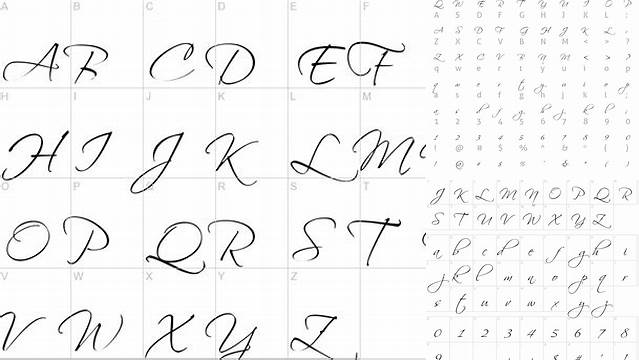
Hey guys, are you on the hunt for a cool, stylish font that can give your projects a touch of elegance and personality? Well, look no further because today we're diving deep into the Scriptina Pro Regular font, and the best part? You can snag a free download! This font is a fantastic choice for a variety of design projects, from crafting beautiful invitations to creating eye-catching logos and branding materials. Let's get into what makes this font so special, where you can download it, and how to use it effectively to elevate your designs.
What Makes Scriptina Pro Regular Font So Special?
Alright, let's talk about what makes the Scriptina Pro Regular font a superstar in the font world. This font is essentially a modern calligraphy script font. It's designed to mimic the look of elegant, flowing handwriting, making it perfect for projects where you want to add a personal touch. The font features beautifully connected letterforms, which is a key characteristic of script fonts, providing a seamless and aesthetically pleasing look. This creates a sense of sophistication and class, which is why it's a favorite among designers looking to create a luxurious feel.
One of the coolest things about Scriptina Pro Regular is its versatility. It's not just a pretty face; it's also super functional. Whether you're designing wedding invitations, creating logos, or working on branding materials, this font fits the bill. It's also great for creating headings and titles where you want to make a strong visual impact. The font’s smooth curves and elegant strokes give any text a touch of finesse that can really make your work stand out. In essence, it helps you make a statement without being overly flashy or complicated. It's about achieving that perfect balance of style and readability.
Think about the last time you saw a design that immediately caught your eye. Chances are, the font played a significant role. Scriptina Pro Regular has the potential to be that attention-grabbing element in your designs. It’s a fantastic way to show off your creativity. It communicates a sense of sophistication and attention to detail. When paired with the right colors and design elements, it can create a cohesive look that really makes a difference. This font is not just about the letters; it's about the overall impression you want to make on your audience.
Another point to remember is that the Scriptina Pro Regular font comes with a full set of characters, which is a bonus. That means you get all the letters, numbers, and special characters needed to make your design work. This is often missing in other fonts. It’s a complete package that gives you the flexibility to create a wide variety of projects. You don't have to worry about running into missing characters or compatibility issues. The font is designed to be user-friendly and easy to integrate into your creative workflow. In the end, this is a font that’s all about making your design work easier and more effective. So, if you’re looking to infuse your projects with elegance and style, Scriptina Pro Regular is definitely worth considering.
How to Use Scriptina Pro Regular Font Effectively
Alright, you've downloaded the Scriptina Pro Regular font – awesome! Now, let's explore how to use it effectively to really make your designs pop. Using this font well is all about knowing when and how to apply it to achieve the best results. From typography to layout, here's some expert advice to help you get the most out of this elegant script font.
- Choosing the Right Project: Scriptina Pro Regular shines in projects that call for a touch of sophistication and elegance. Think of wedding invitations, greeting cards, and event flyers. It is also perfect for branding projects like logos and business cards, where you want to create a memorable and stylish identity. But, be careful: using it for body text can make your work difficult to read. It’s best reserved for headings, titles, and short phrases where its beautiful curves can be fully appreciated. Think about how the font will look in the context of your design before you commit to it. Sometimes, less is more!
So there you have it, guys! The Scriptina Pro Regular font is a stunning choice for anyone looking to inject a dose of elegance and sophistication into their projects. With its flowing curves and elegant design, it's perfect for everything from wedding invitations to logo designs and branding materials. Just remember to download it from safe and reputable sources, be mindful of licensing, and use it in a way that complements your overall design. With a little practice, you'll be able to create stunning visuals that really make a statement. Happy designing!